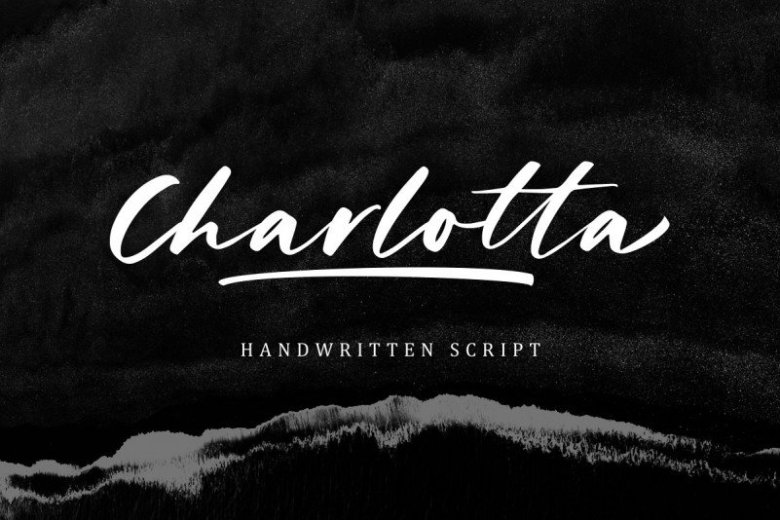
Charlotta Script Font
Presenting Charlotta Font. This is a handwriting look typeface. it have an organic feeling. a little bit feminim feeling, elegant and casual at the same time. It’s a natural handwritten made script which is suitable for you who needs a typeface for headline, logotype, apparel, invitation, branding, packaging, advertising etc. This typeface is comes in uppercase, lowercase, punctuations, symbols & numerals, stylistic set alternate, ligatures, etc